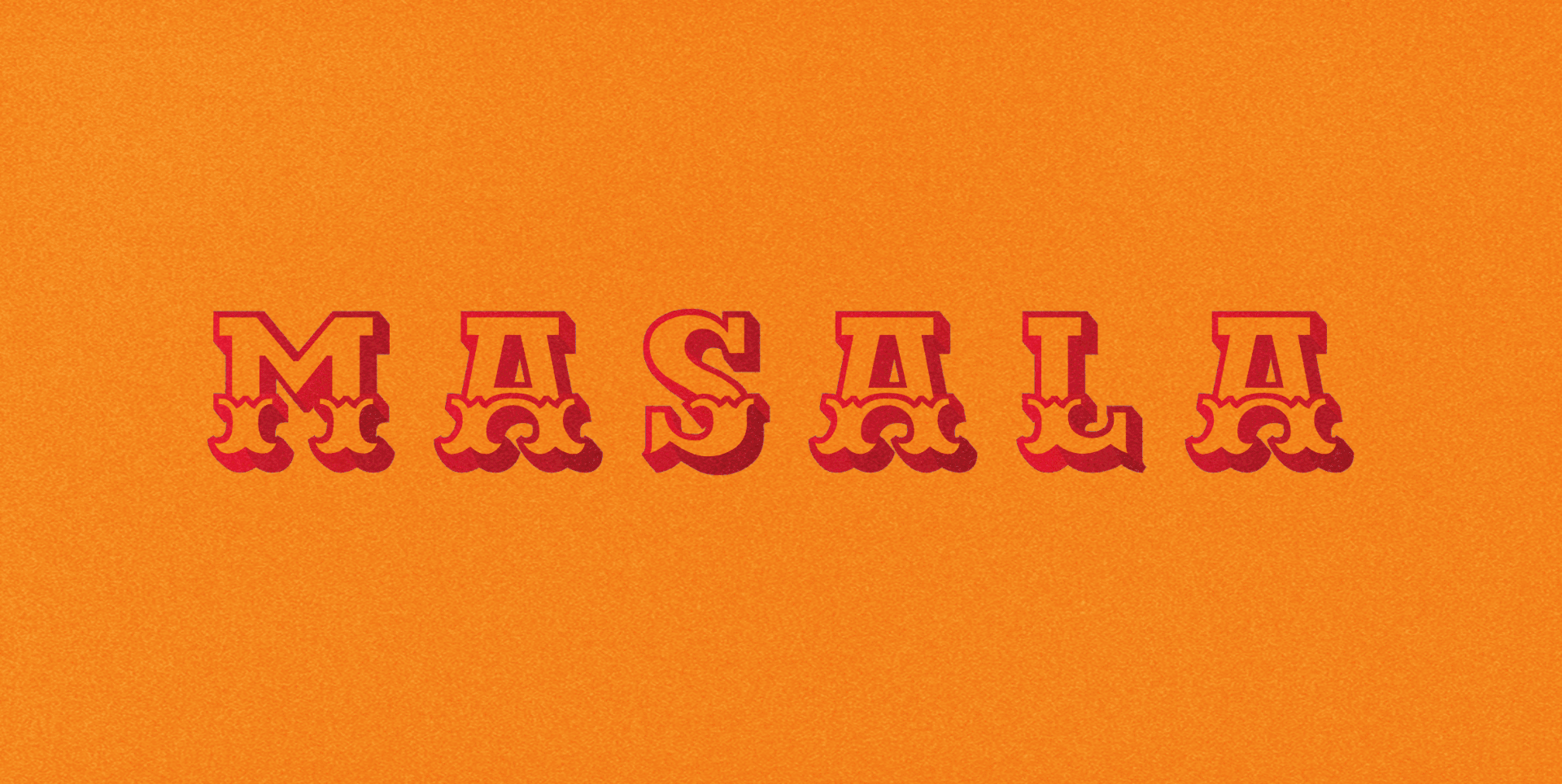
Masala Typeface
Masala typeface is a fun display serif font with bold, 3D graphics. It has been inspired from Indian graphic design and is perfect for a wide range of projects.